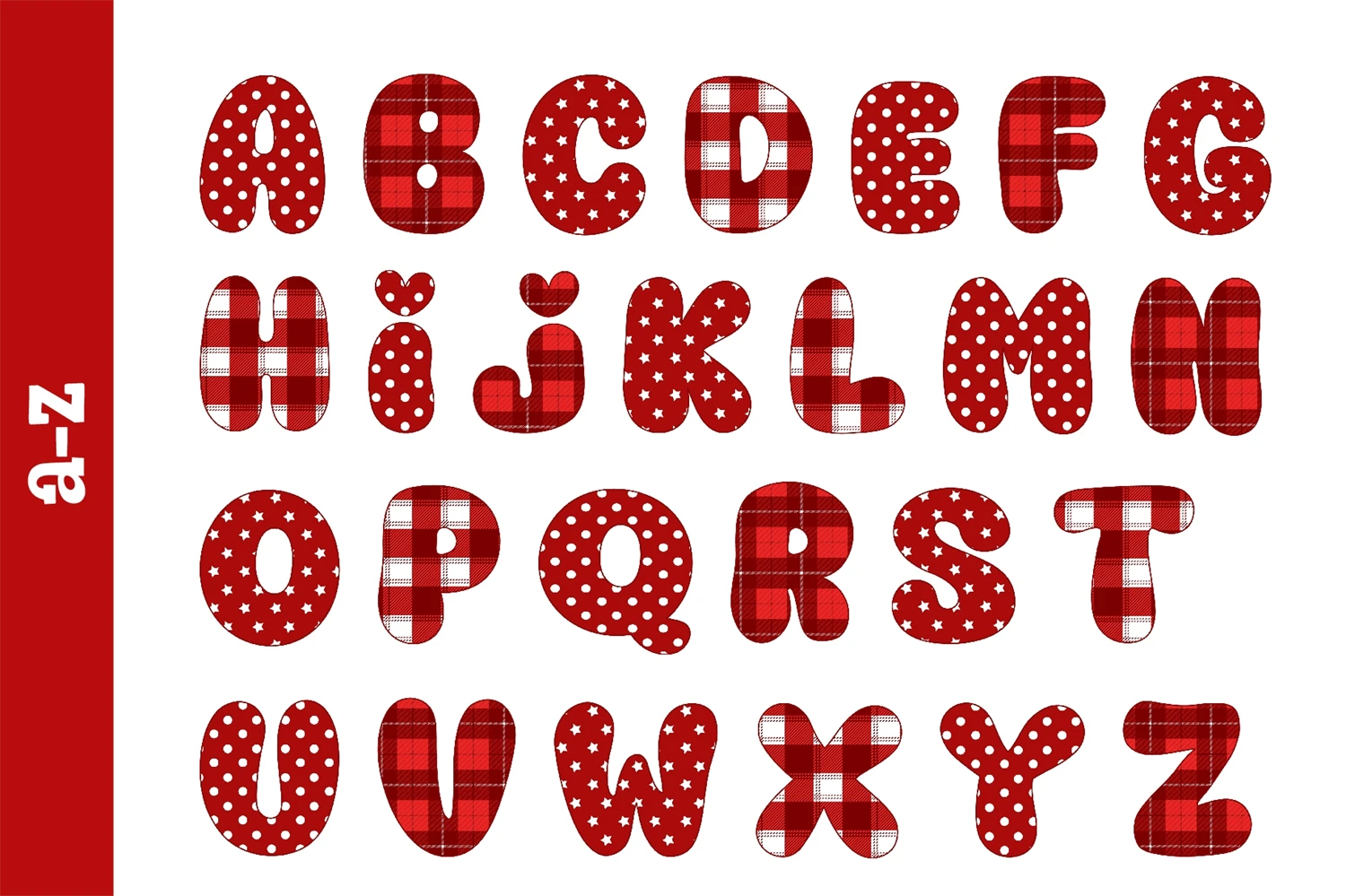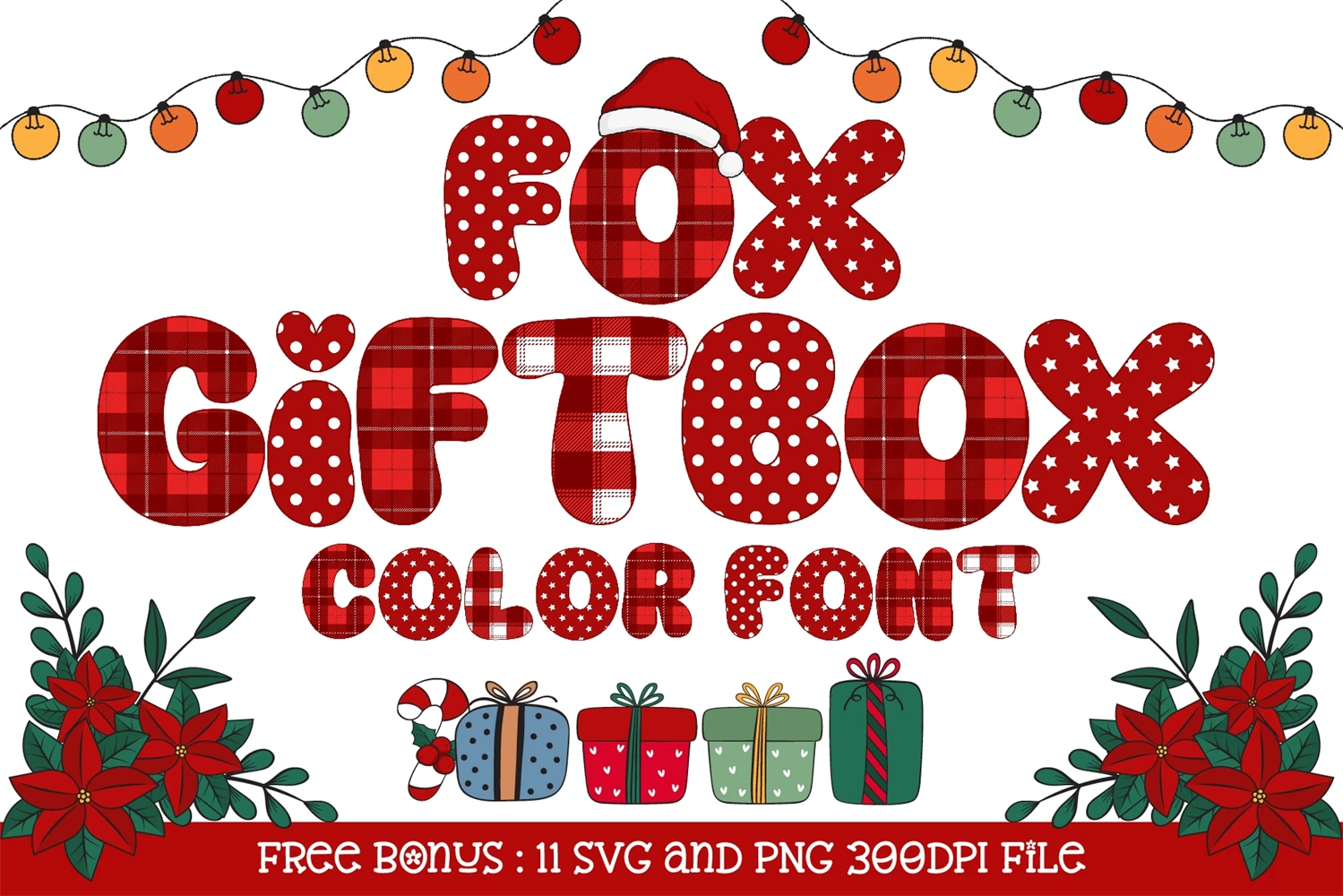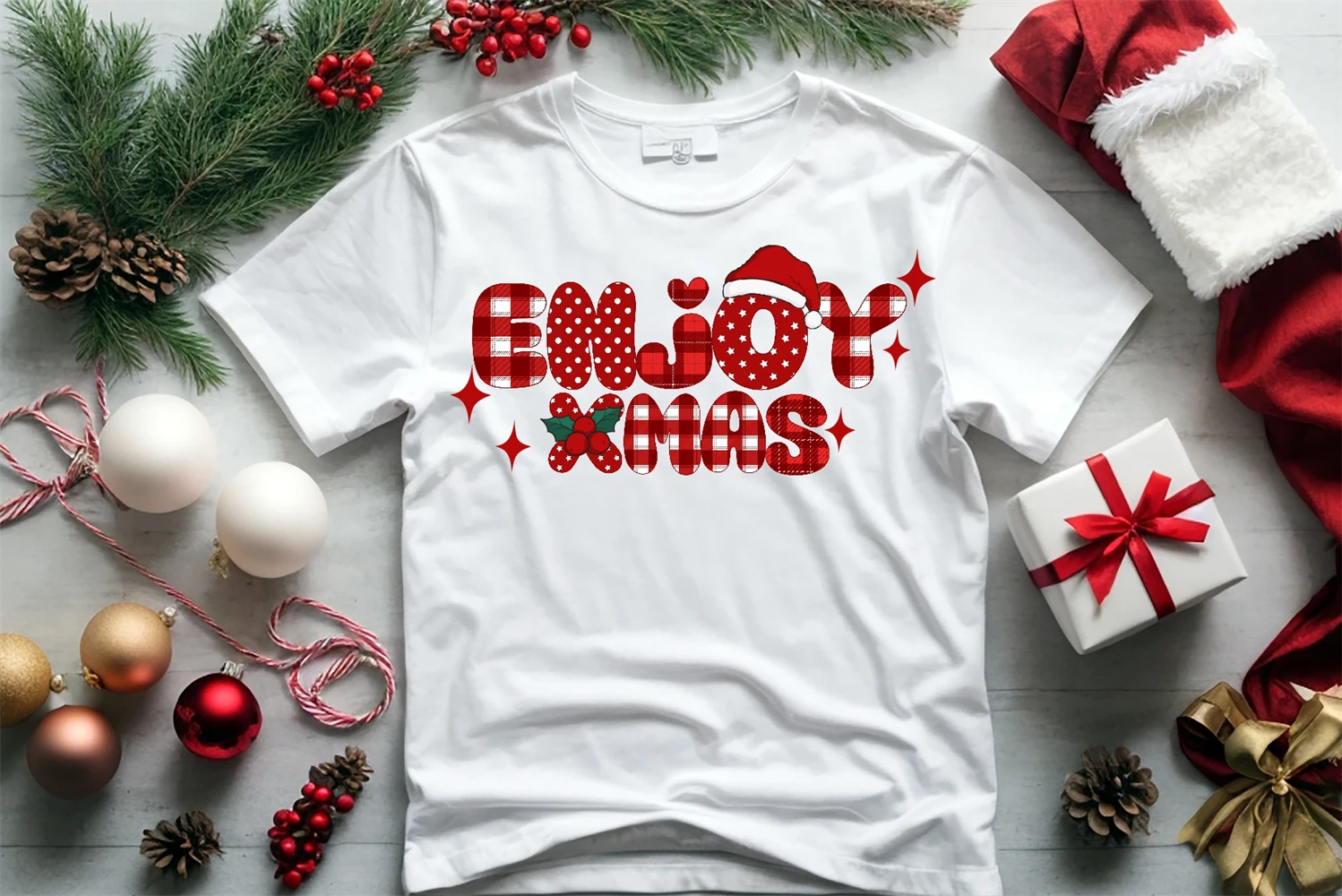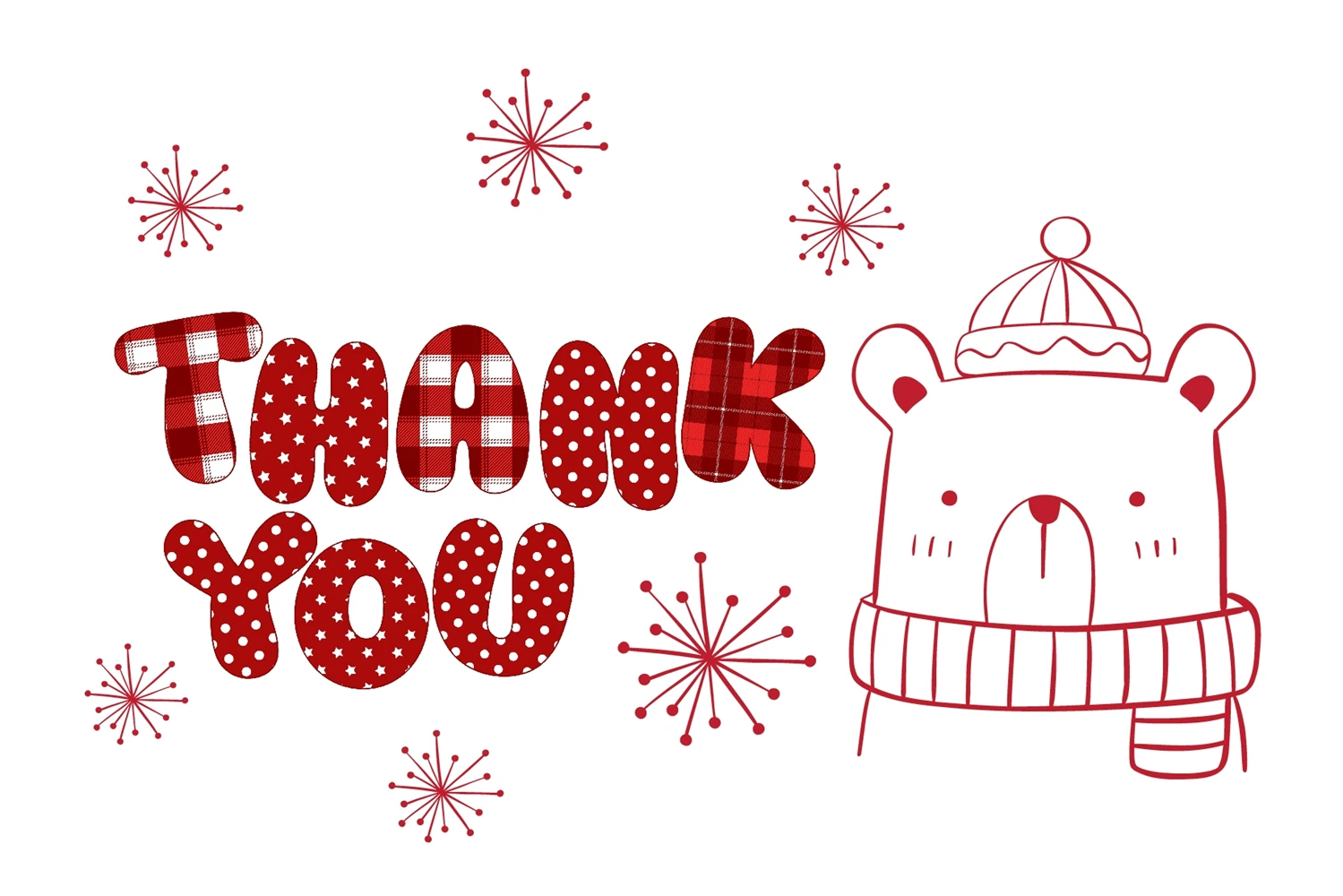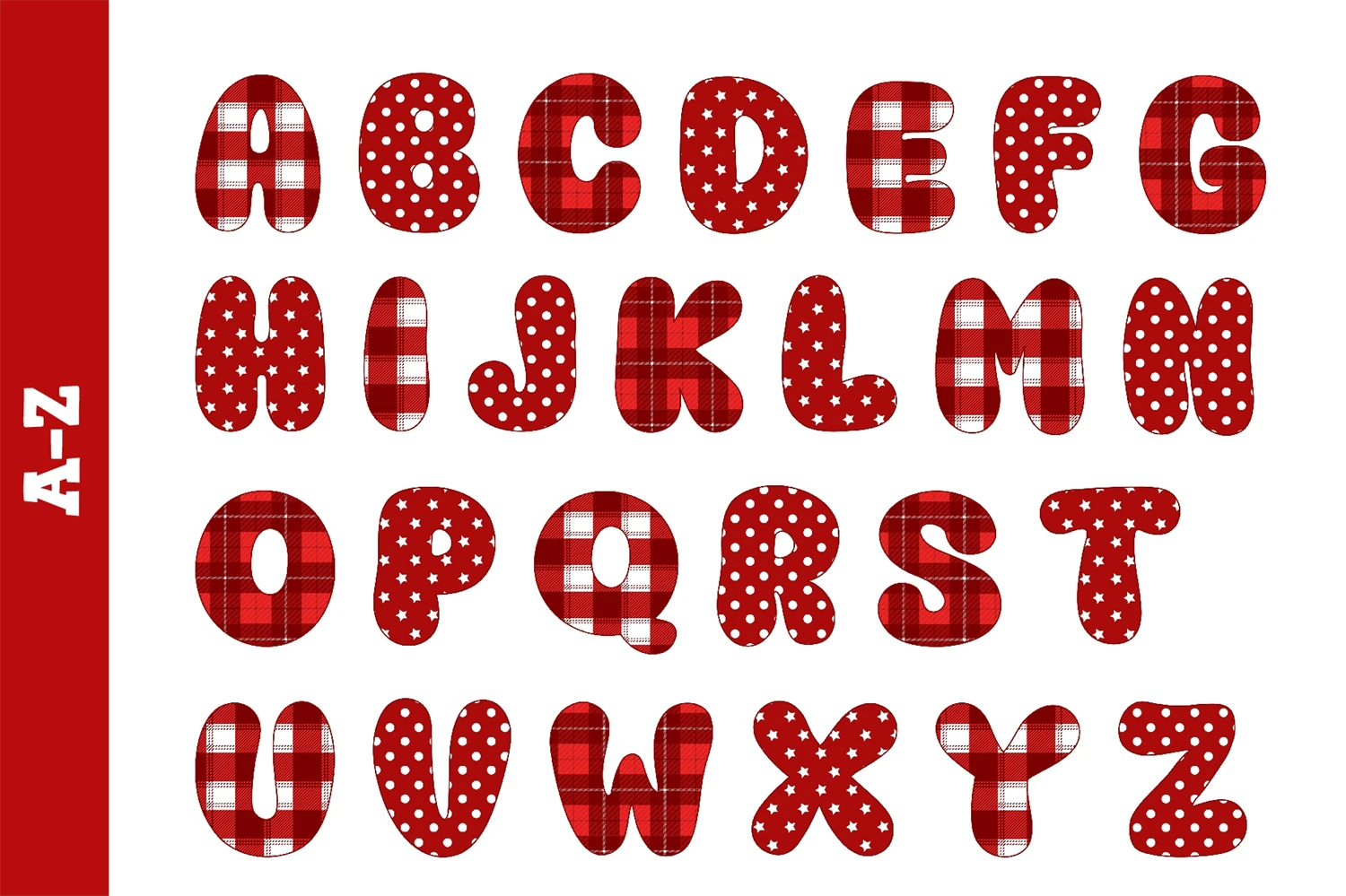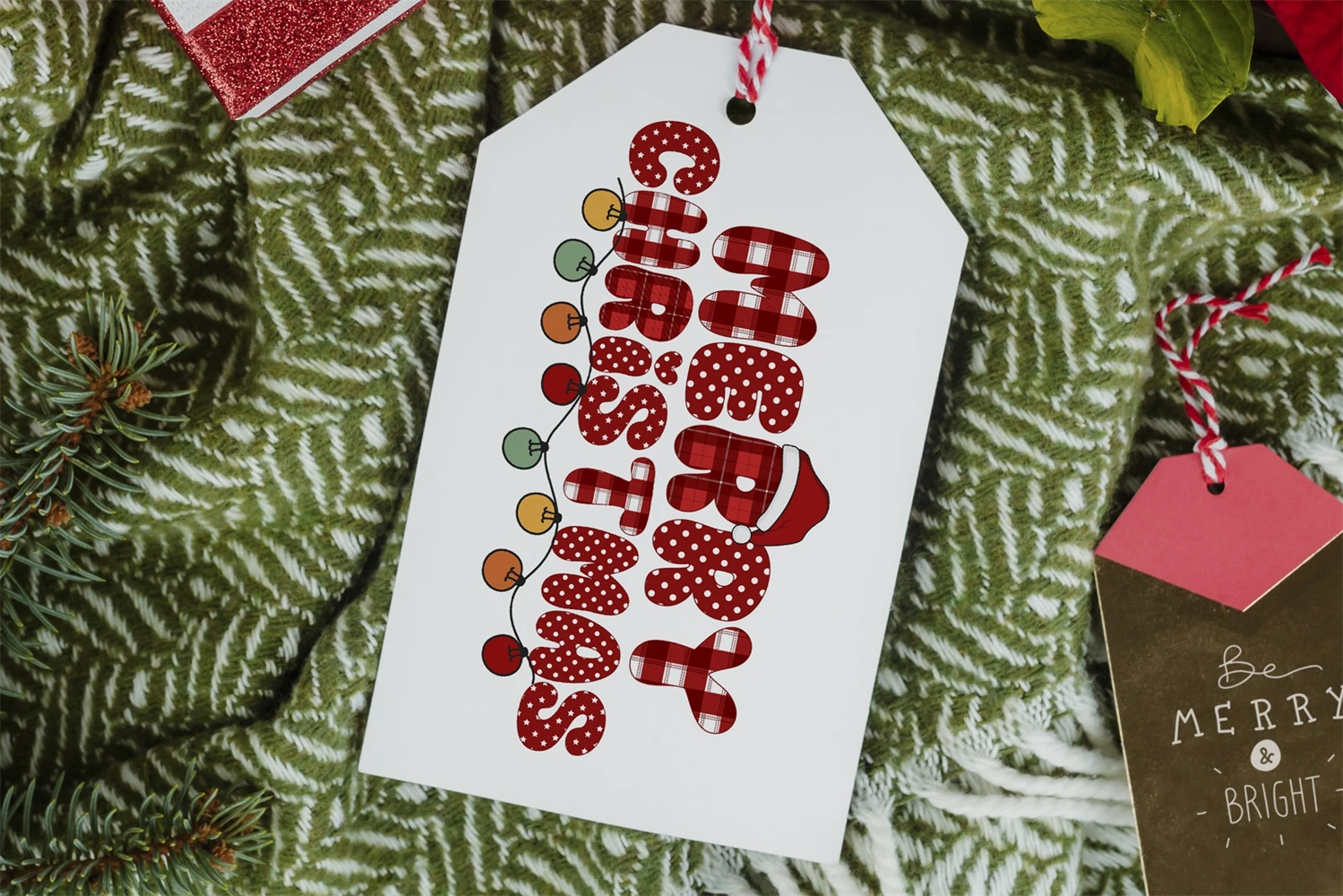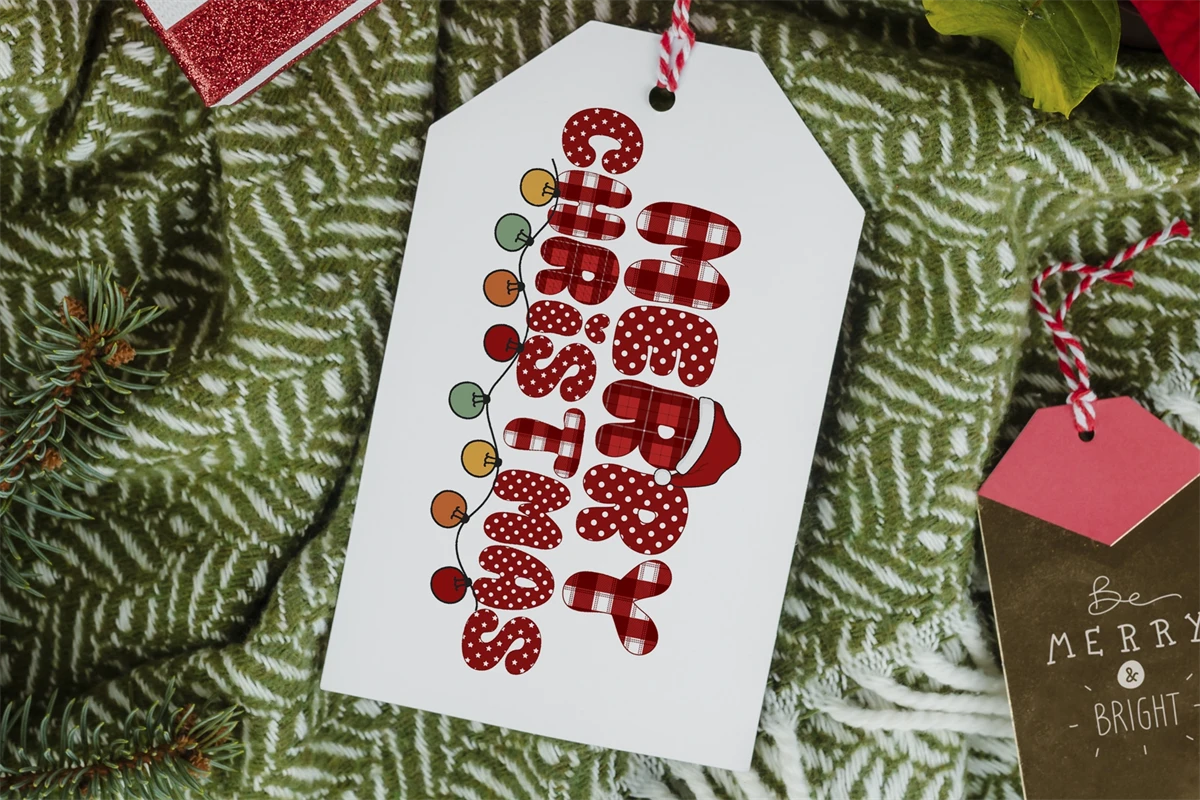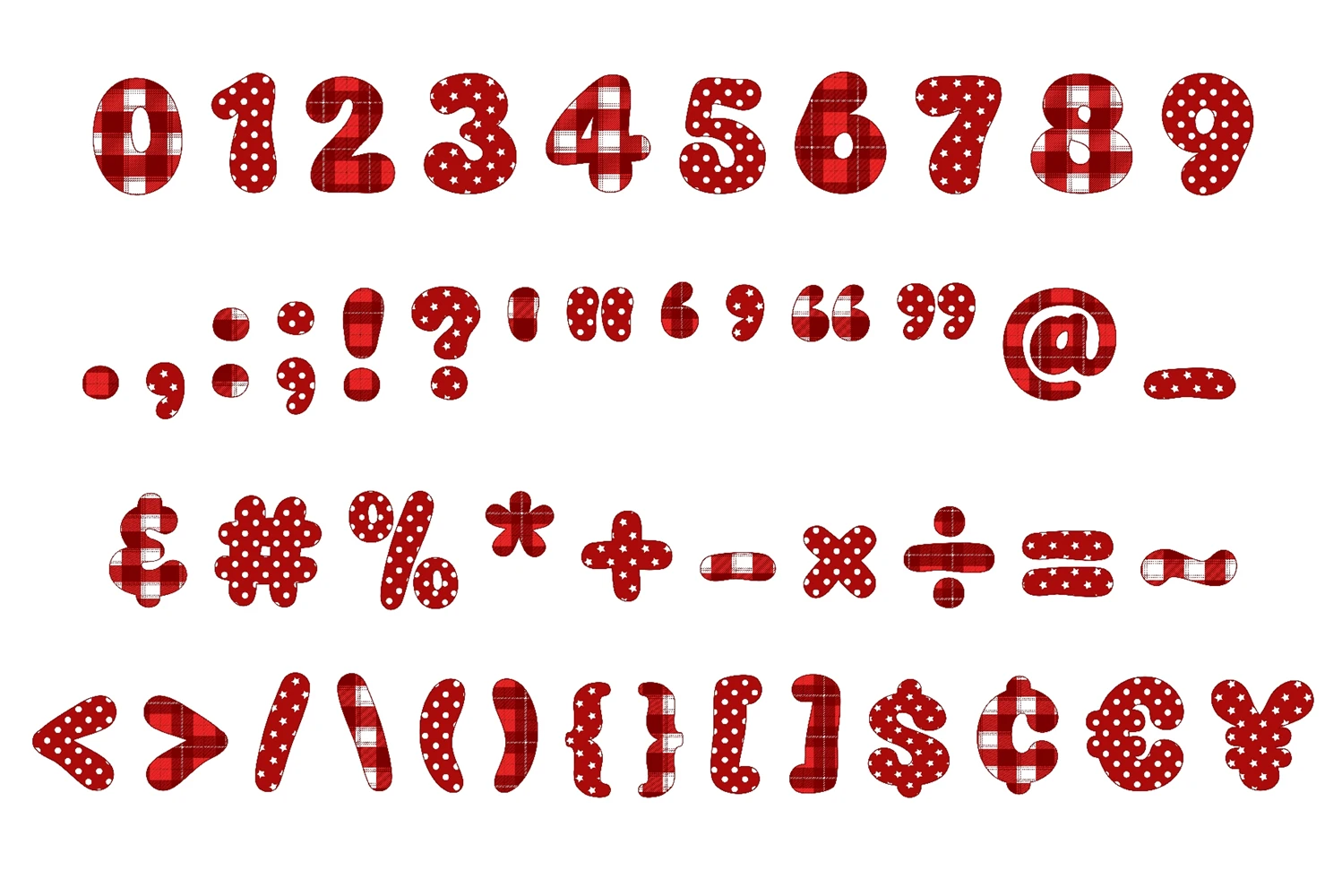
Introducing our charming and versatile Fox Giftbox, the perfect addition to your creative endeavors and gifting needs! This delightful product features a stunning Color Font that beautifully mimics the aesthetics of gift wrapping paper, making it an excellent choice for adding a touch of festive elegance to your projects. Elevate your designs and create memorable, joy-filled moments with the Fox Giftbox. Let your creativity run wild and watch as this charming font adds a unique and festive flair to your projects. Whether you're a professional designer or a DIY enthusiast, this product is your key to turning ordinary designs into extraordinary, unforgettable gifts and creations.